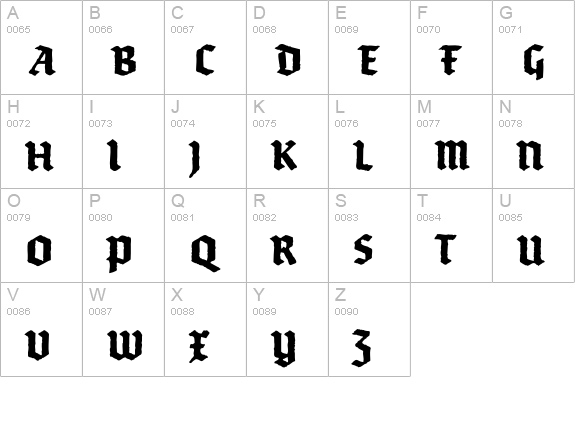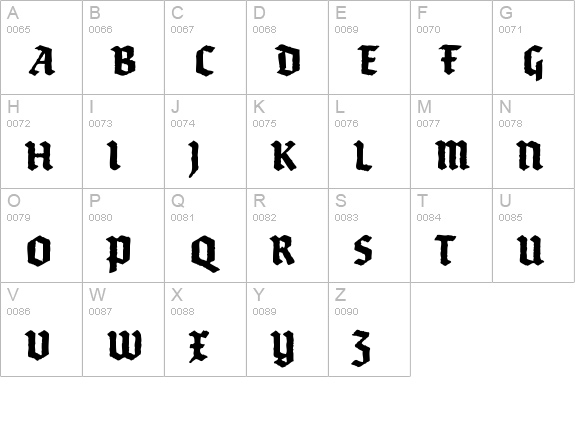
Brokenscript-BoldCondRough Font Details
Brokenscript-BoldCondRough is a bold and dynamic font that exudes a sense of raw energy and edginess. Its rough texture and condensed style give it a unique and eye-catching appearance, making it perfect for projects that require a bold statement or a touch of urban flair. This font is ideal for headlines, posters, logos, and any design where you want to make a strong visual impact. Its bold strokes and uneven edges convey a sense of ruggedness and individuality, setting it apart from more traditional typefaces. Best of all, Brokenscript-BoldCondRough is available for free download at FontsMarket.com. Whether you're a professional designer looking to add a fresh font to your collection or a hobbyist in search of a unique typeface for your personal projects, this font is a fantastic choice that won't cost you a thing. Download Brokenscript-BoldCondRough today and unleash its bold and dynamic style in your designs!